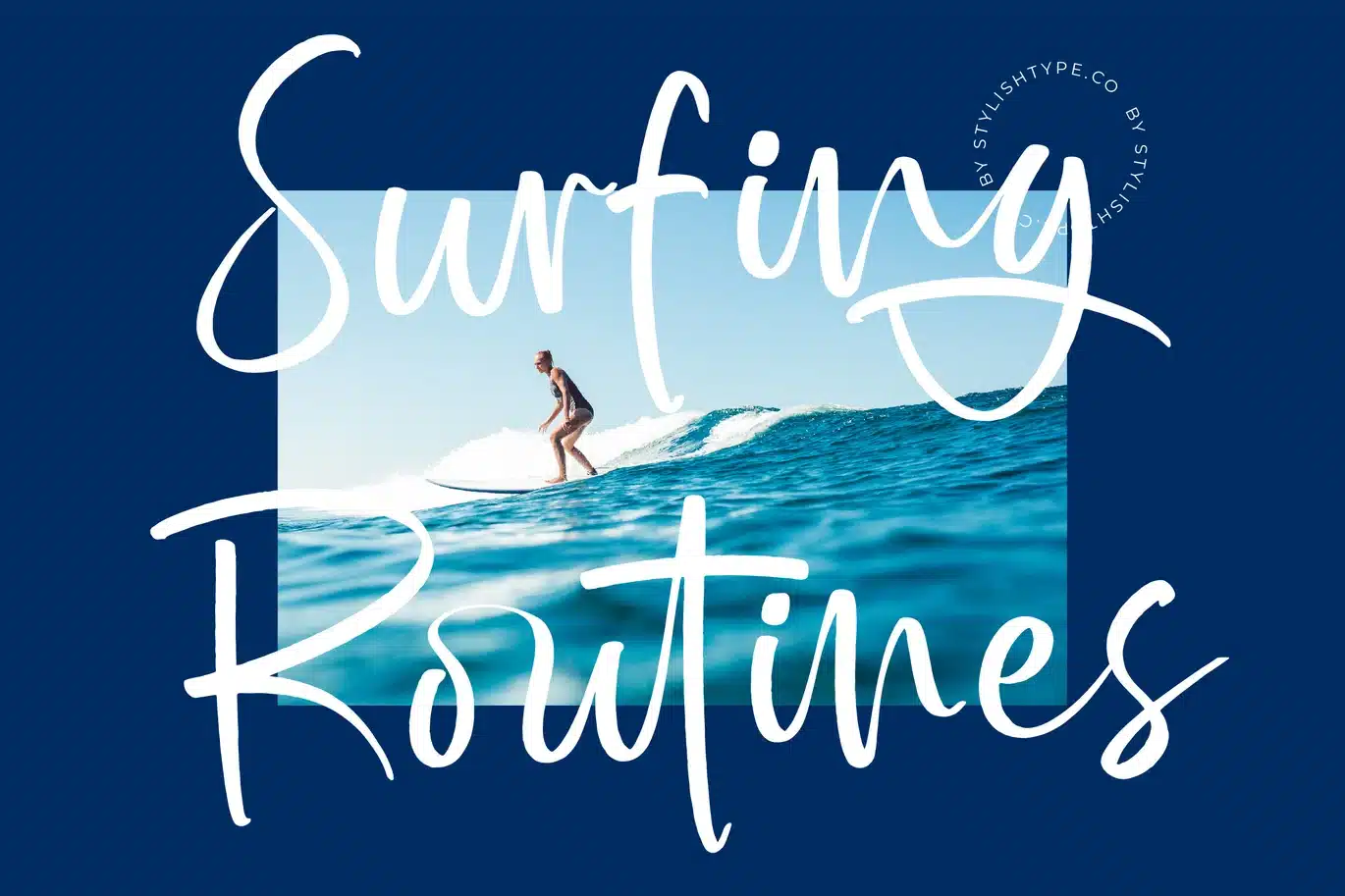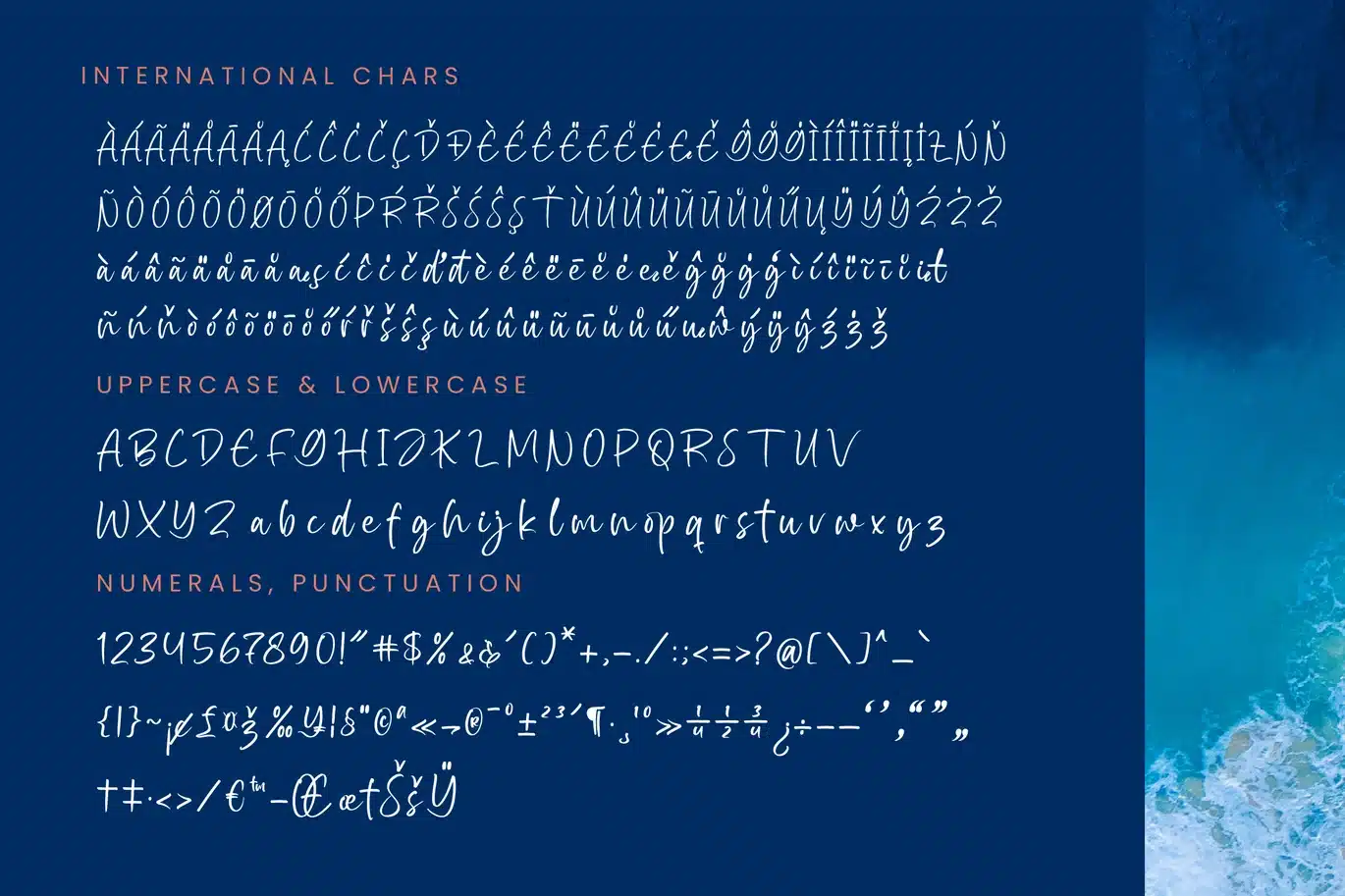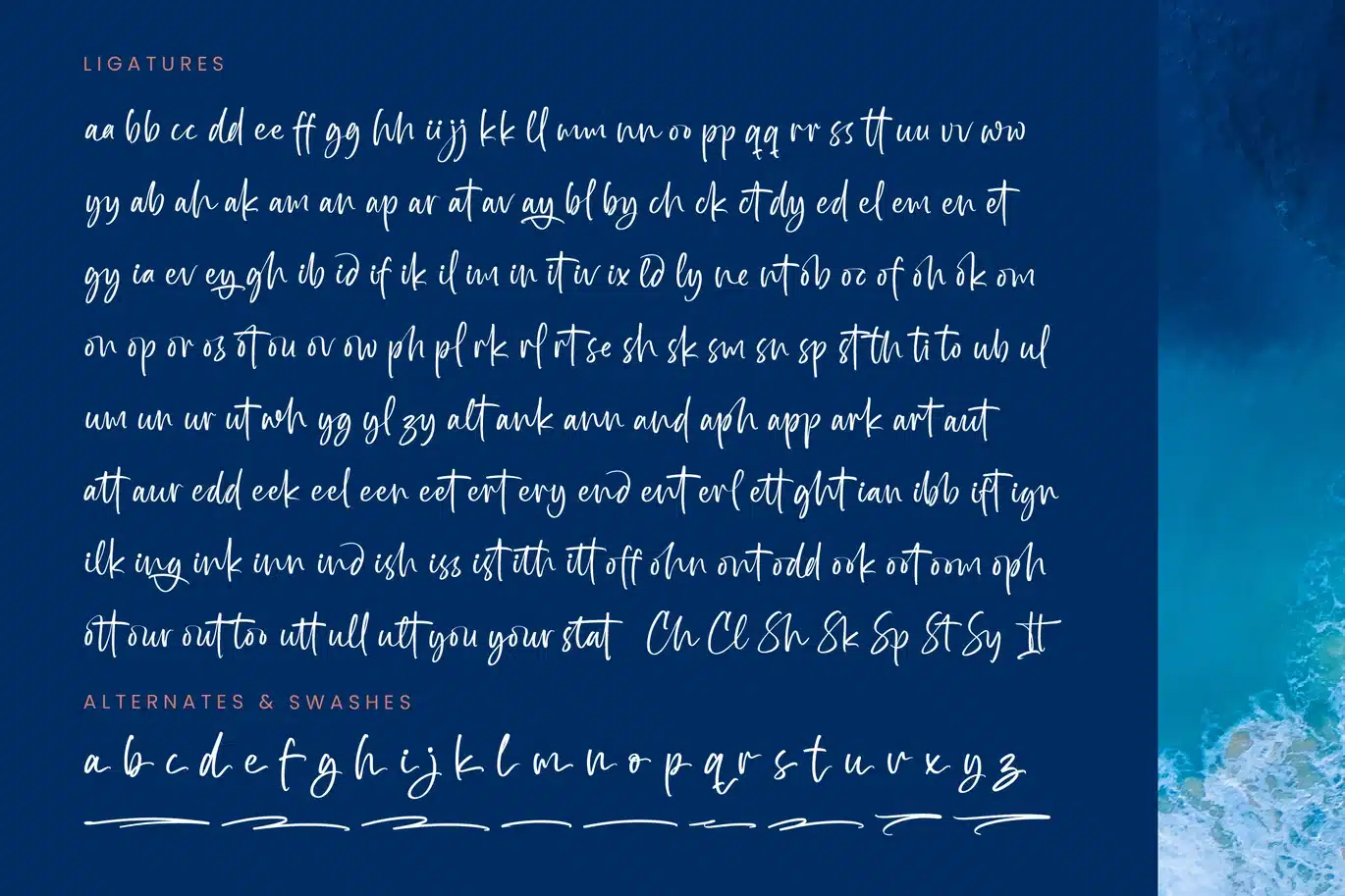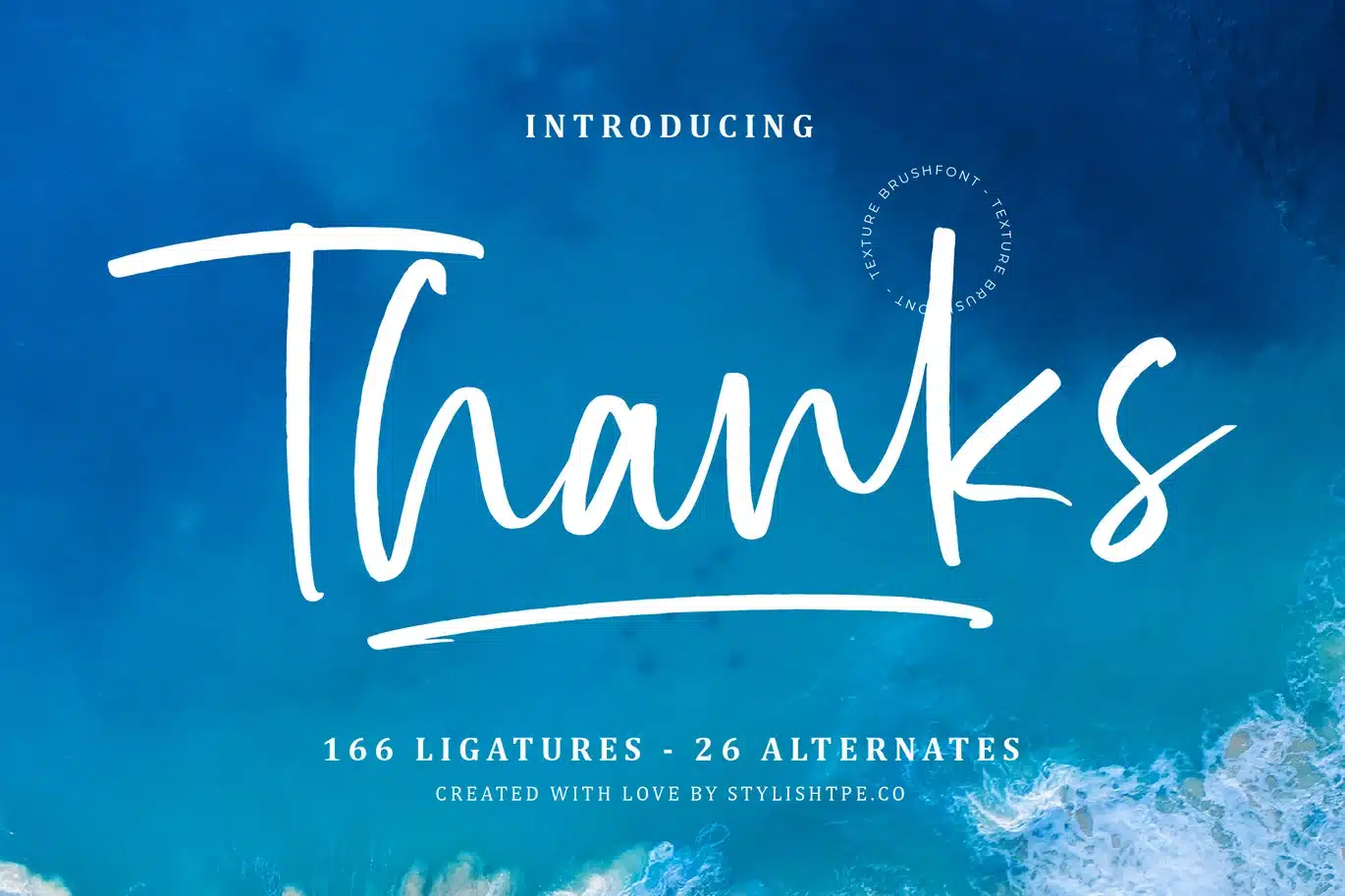
Bright Nastury – Texture Brush Font
Bright Nastury - Texture Brush Font
Unleash the power of authentic expression with Font Bright Nastury - Texture Brush Font Script. This exquisite typeface captivates with its dynamic, hand-drawn texture, embodying the organic fluidity of genuine brush strokes. Each character conveys a sense of personal artistry and immediate appeal, making it an ideal choice for projects demanding a touch of natural sophistication and creative vigor. Its vibrant, energetic lines breathe life into any design.
Elevate your creative ventures with the distinct charm of Font Bright Nastury - Texture Brush Font Script. Expertly crafted to provide an array of stylistic alternatives, including generous ligatures and swashes, this font offers unparalleled design flexibility. It's perfect for creating truly unique and impactful headings, logos, and short text passages that resonate with warmth and authenticity, establishing a memorable visual presence.
Expand your design reach effortlessly. With its extensive multilingual support, Font Bright Nastury - Texture Brush Font Script adapts seamlessly across global markets, making it incredibly versatile for international projects. This crucial feature ensures your message maintains its intended impact and aesthetic integrity, regardless of the language, providing unparalleled flexibility for a worldwide audience.